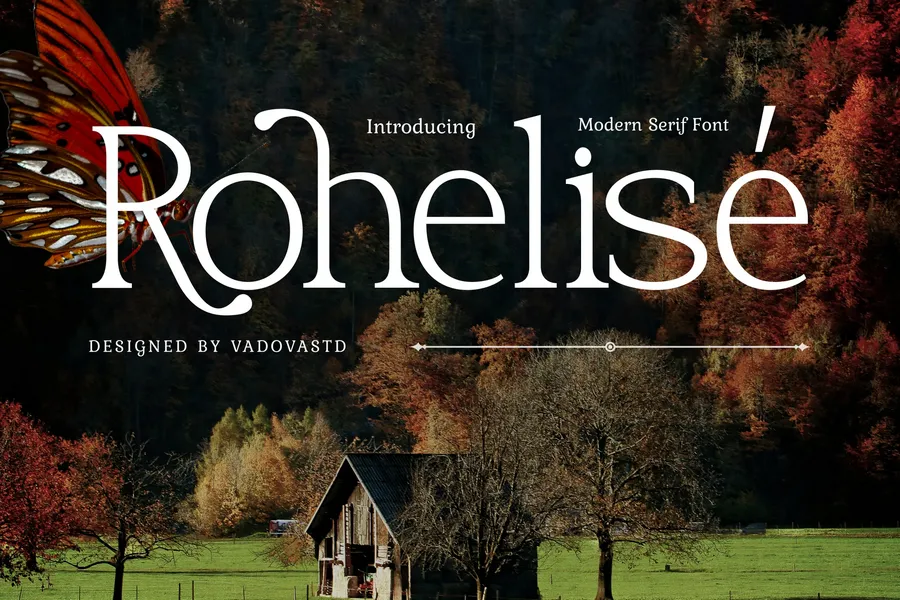
Rohelise Modern Serif Font
Rohelise is a refined modern serif font with a graceful presence and artistic edge. Designed for sophisticated branding and high-end editorial layouts, its sharp contrast and stylish details make it perfect for magazine spreads, promotional materials, and creative portfolios. Rohelise blends timeless serif tradition with a contemporary flair, offering a bold yet elegant typeface that speaks to taste and professionalism.